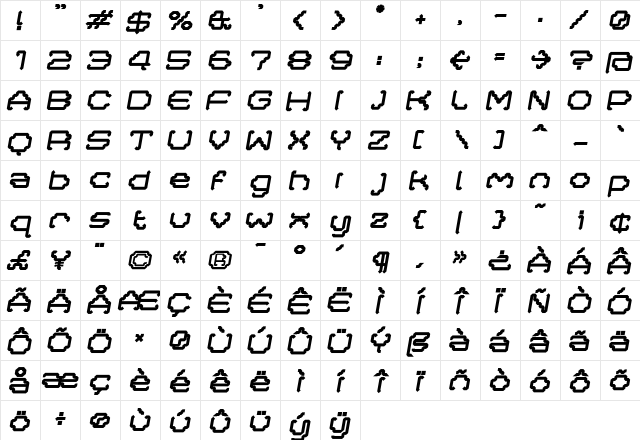
Masta Bold Italic
Design Context for Masta Typeface
Masta takes a measured approach to typography — its balanced proportions and neutral character make it a reliable workhorse for both digital and print work. The dynamic lean of this cut emphasises speed and emphasis in any layout. Its bold stroke weight gives it real presence on the page.